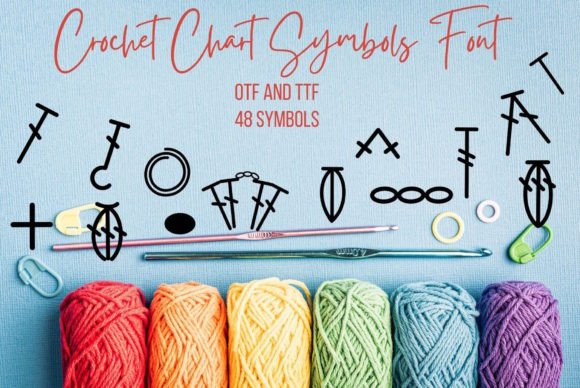
Crochet Chart Symbols Font: A Comprehensive Guide
Crochet enthusiasts, rejoice! Are you tired of manually creating crochet charts or struggling to find the right symbols for your projects? Look no further! The Crochet Chart Symbols Font is here to revolutionize the way you create crochet charts. In this article, we’ll dive into the world of crochet chart symbols and explore the features of this fantastic font.
What is a Crochet Chart Symbols Font?
A crochet chart symbols font is a collection of special characters, specifically designed for creating crochet charts. These symbols represent various stitches, techniques, and instructions used in crochet patterns. The Crochet Chart Symbols Font is a comprehensive set of 48 symbols, carefully crafted to help you create professional-looking crochet charts.
Features of the Crochet Chart Symbols Font
This fantastic font comes with a range of features that make it an essential tool for crochet enthusiasts. Here are some of the key features:
- 48 Crochet Chart Symbols: The font includes a wide range of symbols, covering basic stitches, front post stitches, back post stitches, popcorn stitches, bobble stitches, chain stitches, combined stitches, puff stitches, and miscellaneous stitches.
- Basic Stitches: The font includes symbols for basic stitches such as single crochet, double crochet, and triple crochet.
- Front Post Stitches: You’ll find symbols for front post stitches, which are used to create textured patterns.
- Back Post Stitches: The font also includes symbols for back post stitches, which are used to create reversible patterns.
- Popcorn Stitches: Popcorn stitches add a fun and playful touch to your crochet projects. The font includes symbols for these stitches.
- Bobble Stitches: Bobble stitches are used to create textured, dimensional patterns. The font includes symbols for these stitches.
- Chain Stitches: Chain stitches are a fundamental part of crochet. The font includes symbols for chain stitches.
- Combined Stitches: The font includes symbols for combined stitches, which are used to create complex patterns.
- Puff Stitches: Puff stitches add a soft, textured element to your crochet projects. The font includes symbols for these stitches.
- Miscellaneous Stitches: The font also includes symbols for miscellaneous stitches, such as magic circle, join, start, direction, and slip stitch.
Customization Options
One of the best features of the Crochet Chart Symbols Font is its customization options. You can:
- Resize: Resize the symbols to fit your needs.
- Color: Change the color of the symbols to match your brand or project.
- Rotate: Rotate the symbols to create unique and complex patterns.
Benefits of Using the Crochet Chart Symbols Font
- Enhance Creativity: With a wide range of symbols and customization options, you’ll be able to create unique and complex crochet patterns.